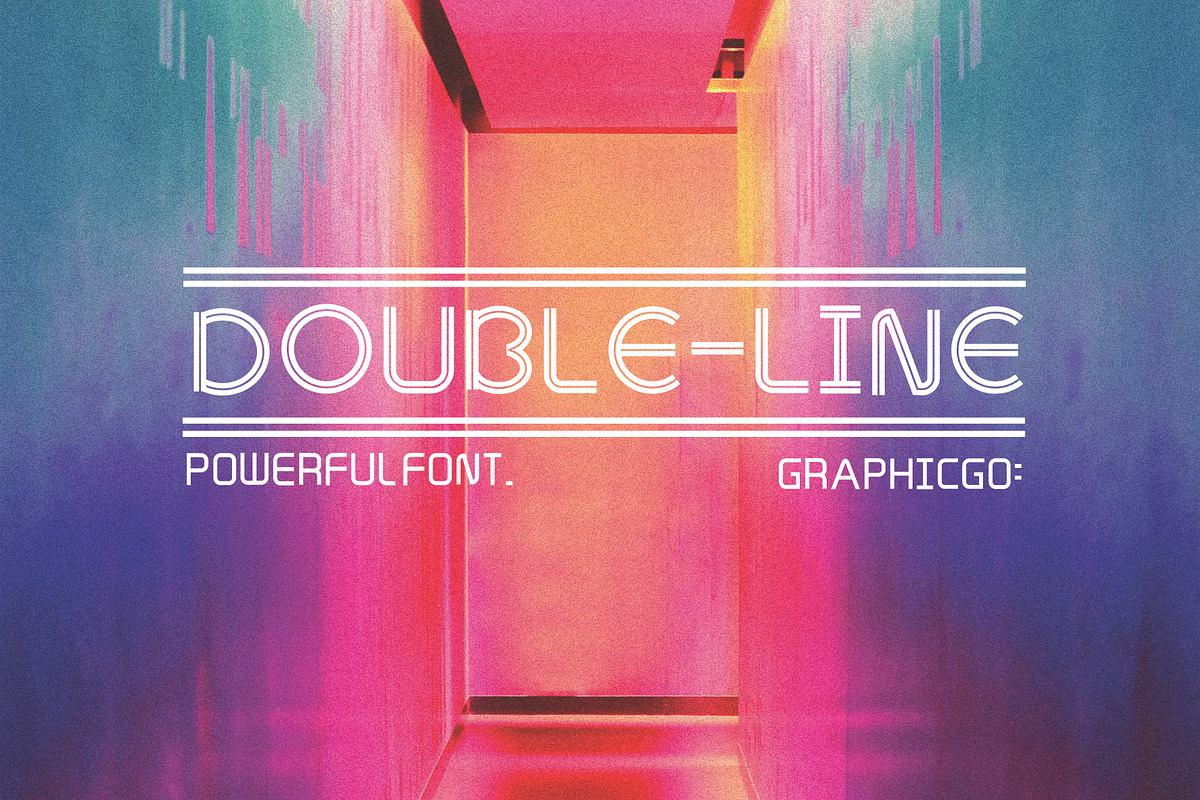
DoubleLine Font Free Download is a unique and modern display typeface that features a striking double-line design, perfect for creating futuristic, artistic, and fashion-forward visuals. With its outlined letterforms and sleek geometric shapes, DoubleLine is ideal for logos, posters, editorial headlines, branding, album covers, and digital art projects.
Crafted for visual impact, DoubleLine Font Free Download stands out with its creative dual-stroke style, giving your typography an avant-garde, stylish edge. It’s an excellent choice for high-contrast compositions and bold statement pieces where typography is meant to shine.
Whether you're designing for fashion, lifestyle, tech, or modern editorial layouts, DoubleLine delivers a clean, trendy look that catches the eye. It pairs well with solid sans-serifs for contrast or can be used on its own as a headline-grabbing feature.